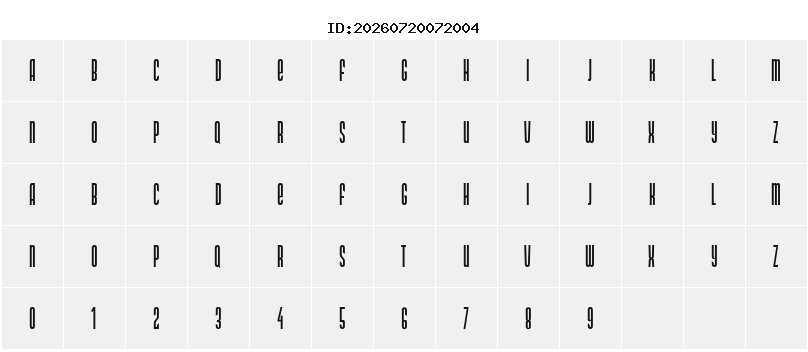
ft24.ttf
ft24 Preview
• Font Name: ft24
• Font Style: Extra-condensed Medium
• Designer: FT Content Provider
About ft24.ttf
ft24.ttf is a modern, elegant sans-serif font designed for ultimate readability and visual harmony. Perfect for branding, headlines, web design, and print materials.